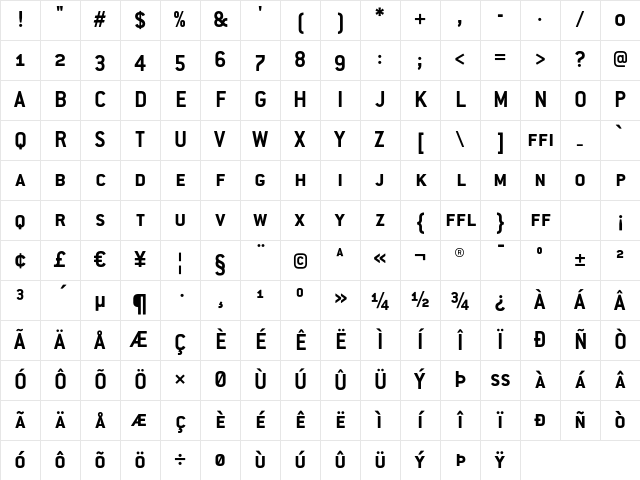
ConduitSCITC Bold Free Font
ConduitSCITC Bold
Design Context for ConduitSCITC
ConduitSCITC is a composed and adaptable typeface that performs quietly and consistently across a wide range of design contexts. Its bold stroke weight gives it real presence on the page. Its narrow stance lets it pack a punch even in space-constrained designs.